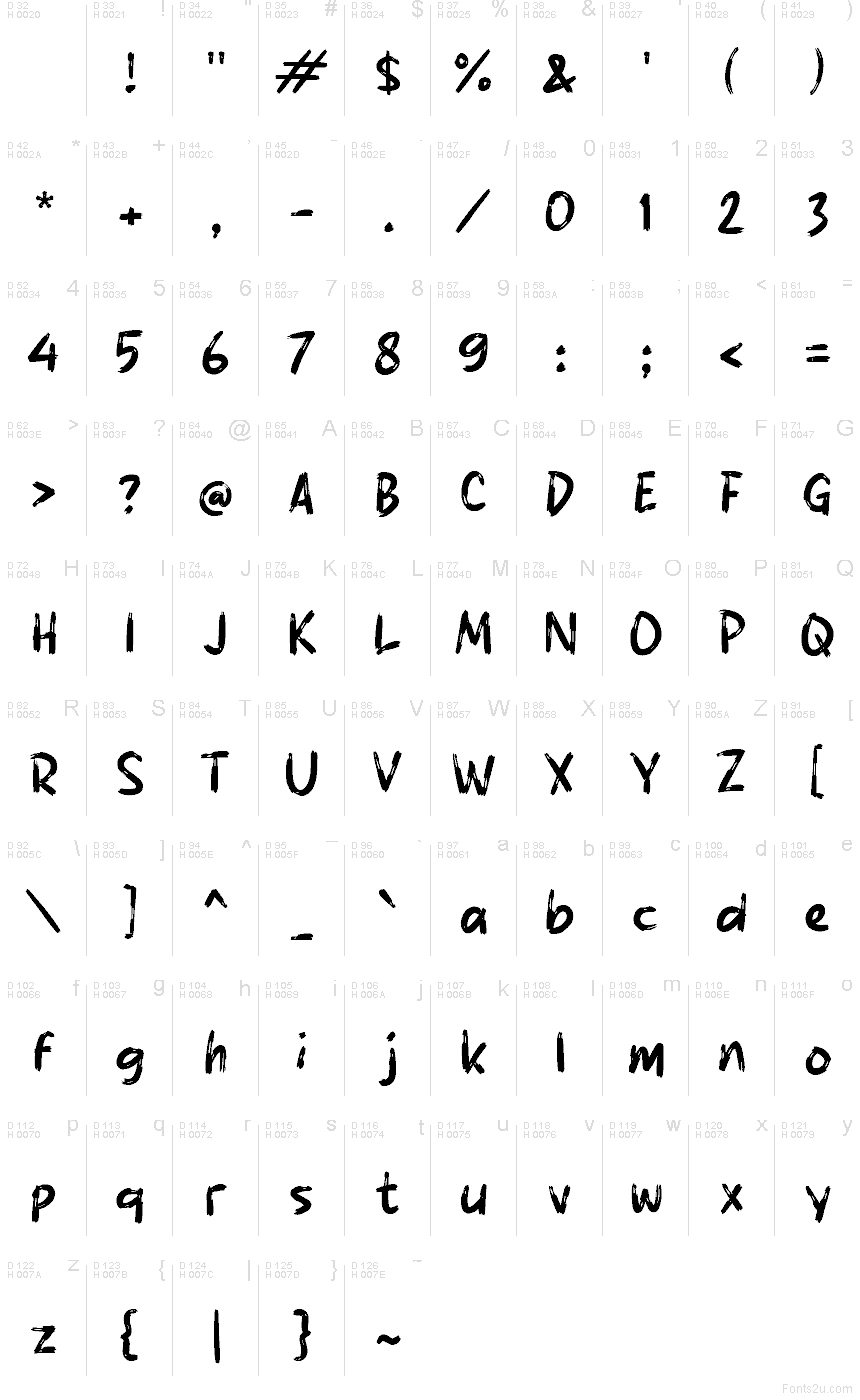
RABARES
Rabares font by wepfont.com is a free brush font that looks like it’s been slashed onto the page with a loaded marker. Thick strokes taper into ragged edges, leaving inky streaks and splatters that feel fast, loud, and slightly unruly. Letters lean and twist with a casual rhythm, giving headlines a raw, hand-painted energy that’s hard to fake with cleaner scripts or polished brush styles.
Using Rabares, you can throw instant attitude onto music covers, streetwear logos, extreme sports flyers, YouTube thumbnails, edgy branding, stickers, and bold poster titles. The tight spacing and chunky brush texture make short words punchy and unforgettable, especially at larger sizes. Pair this free font with a simple, neutral sans serif for small text to keep the rough, expressive brushwork in the spotlight.